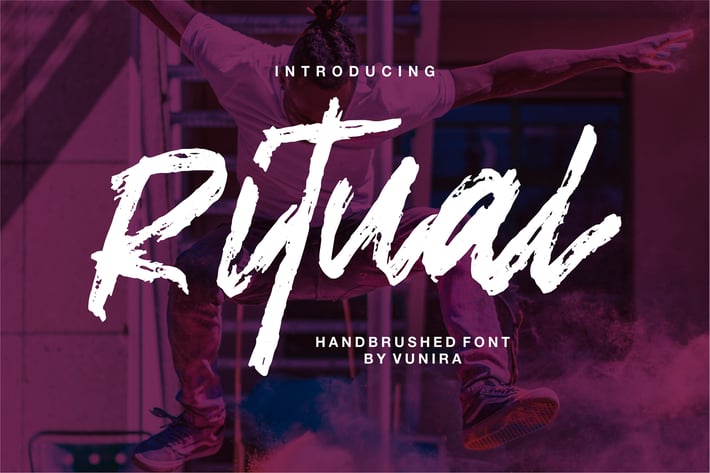
Ritual | Handbrushed Font
Ritual | Handbrushed Font with a calligraphy style, So beautiful on invitation like greeting cards, branding materials, business cards, quotes, posters, and more!